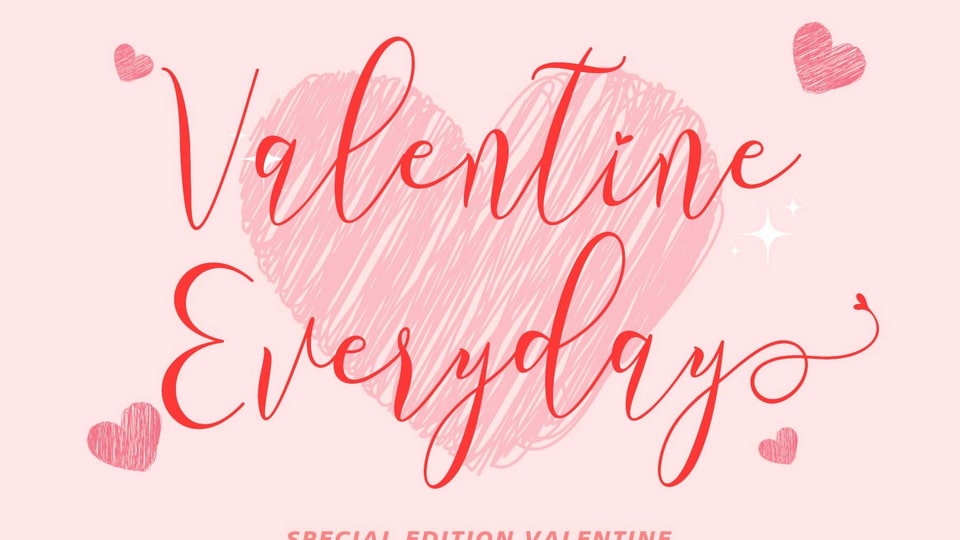
Download Valentine Everyday font, a beautiful and elegant script typeface with heart decorations. This font is suitable for Valentine’s Day, Christmas, winter, spring, weddings, logos, and many others.